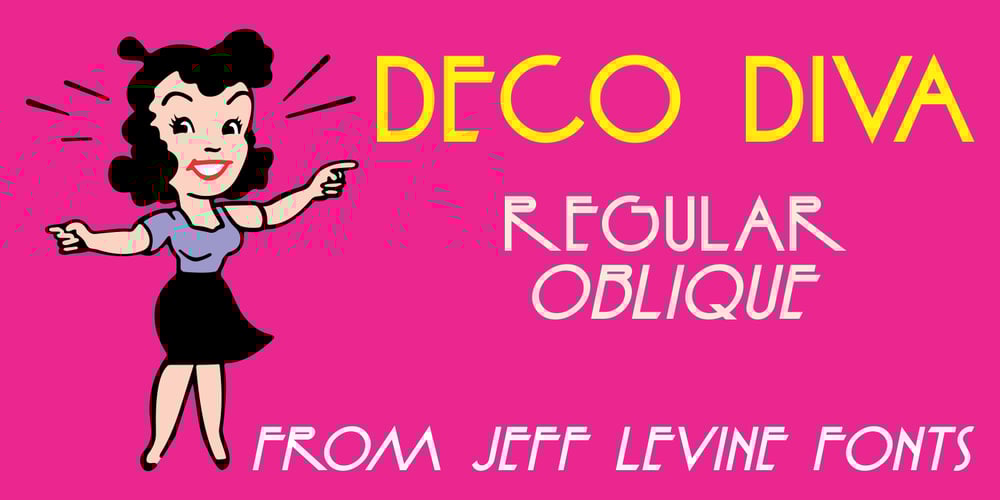
Deco Diva JNL
Deco Diva JNL font
Deco Diva JNL Font Family was designed by Jeff Levine and published by Jeff Levine. Deco Diva JNL contains 2 styles and family package options. The title hand lettered onto the 1933 sheet music cover for “Yours is My Heart Alone” represents the classic Art Deco typographic features of unusual character shapes and widths, yet at the same time it projects simplicity in geometric design. This served at the basis for Deco Diva JNL, which is available in both regular and oblique versions.